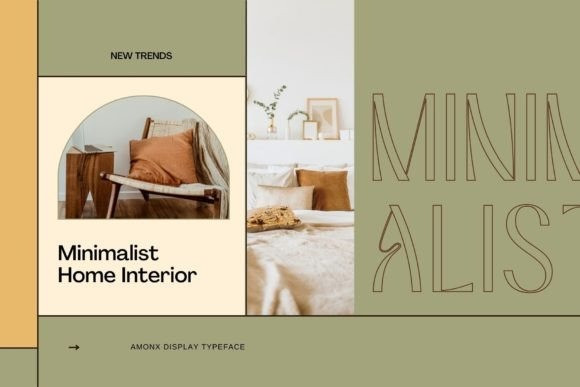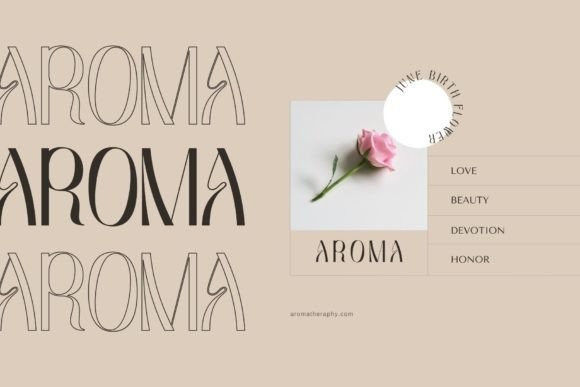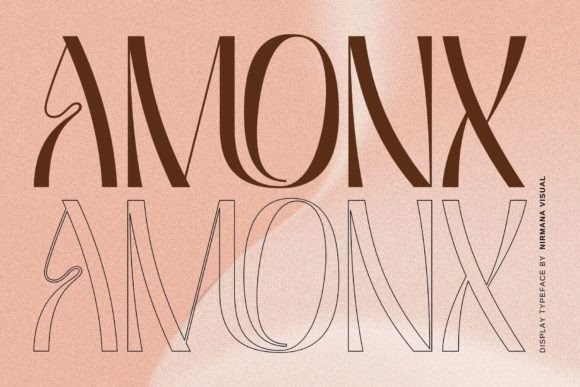
Amonx Font
Amonx Display Font offers beautiful typographic harmony for a diversity of design projects, including logos & branding, social media posts, advertisements & product designs.